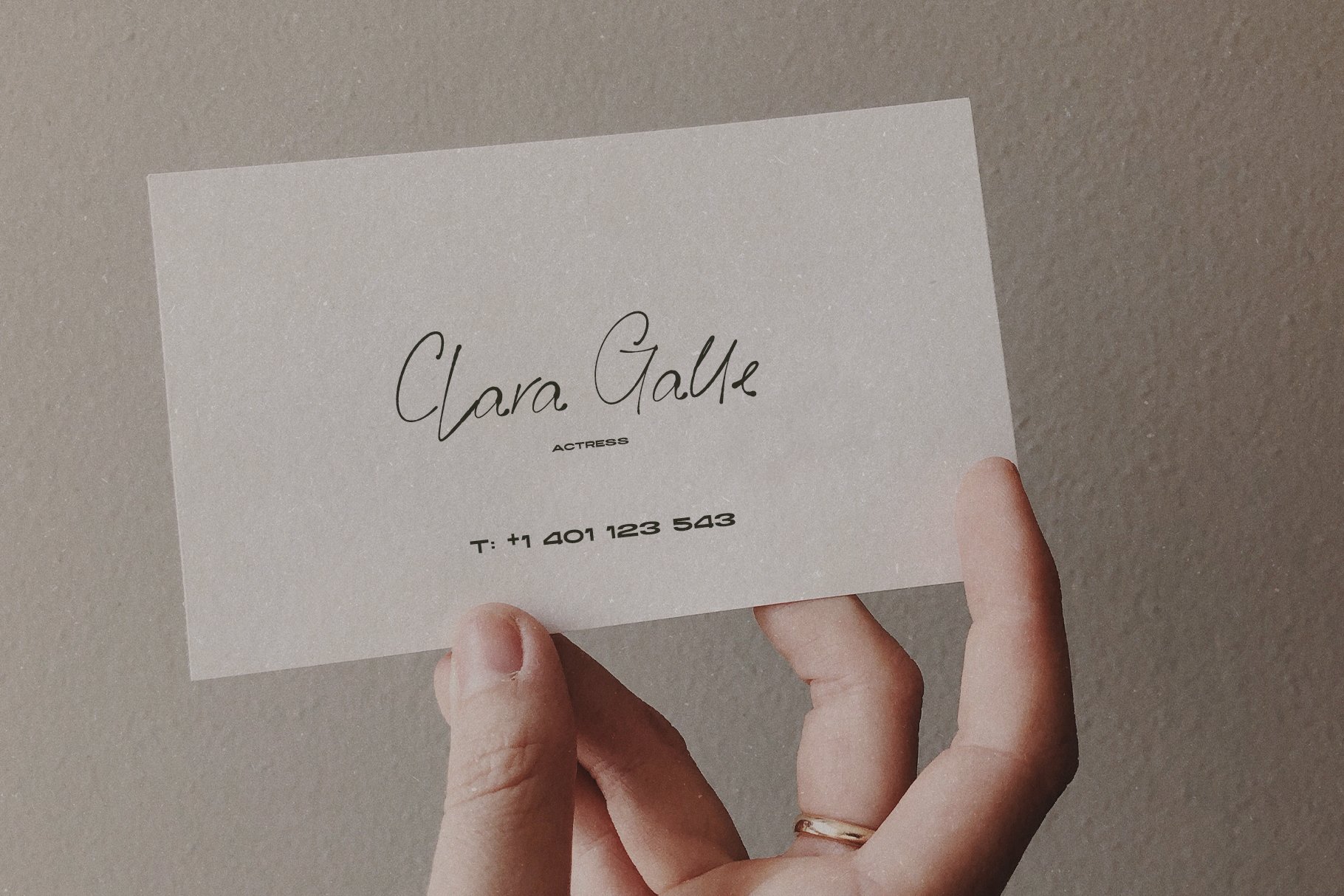
1. Nevada — For a Cozy, Retro Christmas
Vintage is king right now. The classic "Americana" aesthetic—think old motel signs and 70s Coca-Cola ads—is trending heavily in holiday marketing.
Why it works: Nevada adds instant warmth and nostalgia to any design. It captures that "home for the holidays" feeling perfectly.
Best for: Ugly Christmas sweater designs, coffee packaging, or warm, "grainy" Instagram posts.
Pro Tip: Pair it with muted colors like burgundy or mustard yellow for that authentic 70s postcard look.
2. SA Magazine — For Premium & Luxury Greetings
If your client is a high-end beauty brand, jewelry store, or fashion label, forget the "fun" fonts. They need elegance.
Why it works: SA Magazine is a modern serif with character. Its high contrast strokes create a "Quiet Luxury" vibe, reminiscent of high-fashion editorials like Vogue or Harper's Bazaar.
Best for: Minimalist holiday sale banners, luxury event invitations, and editorial layouts.
Pro Tip: Use it in ALL CAPS with wide tracking (letter spacing) for a sophisticated, expensive look.
3. Giardino Albino — For Heartfelt Messages
In a world flooded with AI-generated content, the human touch is more valuable than ever. People are craving authenticity.
Why it works: Giardino Albino doesn't look like a computer font—it looks like a real signature. It’s airy, light, and deeply personal.
Best for: Signing "With Love..." on gift tags, wedding invitations, or personalized thank-you cards for small businesses.
4. Atlantic Ocean — For Big Holiday Sales
Christmas isn't just about cozy nights; it's also the biggest retail season of the year. You need a font that screams "SALE" without losing style.
Why it works: This is an Ultra-Wide display font. It takes up horizontal space, making any headline feel monumental and confident. It grabs attention immediately in a busy social media feed.
Best for: Massive "XMAS SALE" headlines, 50% OFF banners, and bold website headers.
5. SA Céleri — For Modern & Edgy Aesthetics
Sometimes you need something that sits right between classic tradition and modern art.
Why it works: With its sharp serifs and unique ligatures, SA Céleri is for brands that want to look edgy yet refined. It’s crisp, clean, and incredibly stylish.
Best for: Holiday dinner menus, sophisticated party flyers, or boutique branding.
Don't be afraid to mix styles! Try combining the bold, wide stance of Atlantic Ocean for your main headline with the delicate, handwritten touch of Giardino Albino for accent text. This contrast between "strength" and "softness" is going to be a massive trend in graphic design for 2026.